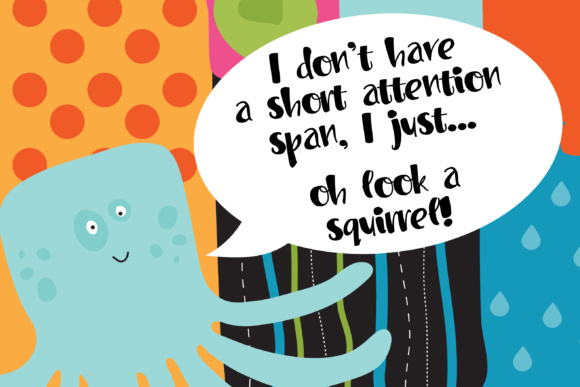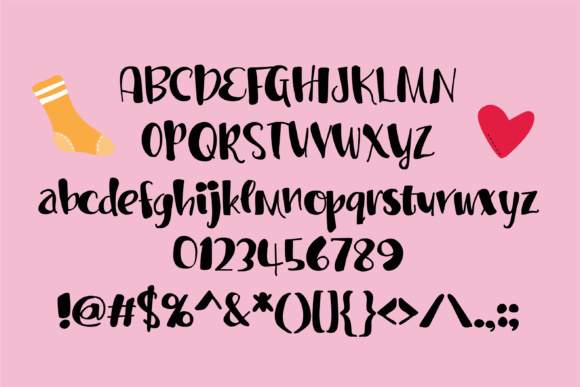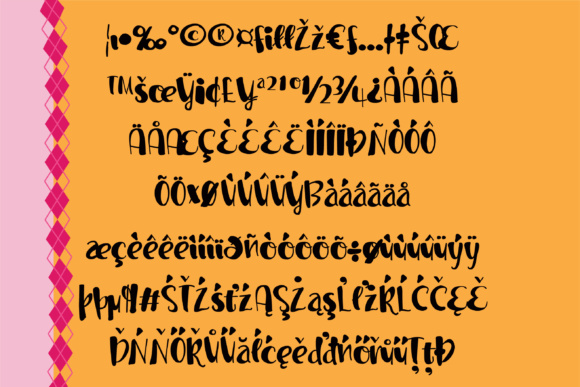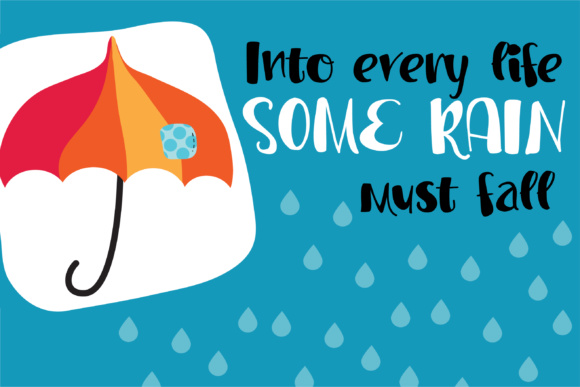
Introduction to PN Octopus Socks Font Font
Fonts play a crucial role in design, and the PN Octopus Socks Font font is a typeface that brings both character and versatility to any project. Whether you’re working on a branding project, a website, or a print design, the PN Octopus Socks Font font offers a unique style that can elevate your work.
This fun and whimsical font is hand-drawn and has an interesting mix of thick and thin lines.
Key Features of PN Octopus Socks Font Font
Why Choose PN Octopus Socks Font Font?
The PN Octopus Socks Font font is more than just a typeface – it’s a design tool that helps you communicate your message with style and clarity. Its unique character set and versatile design make it suitable for a wide range of applications, from elegant invitations to bold headlines.
With its carefully crafted letterforms and balanced proportions, the PN Octopus Socks Font font ensures readability and visual appeal across all mediums.
What makes PN Octopus Socks Font font special?
The PN Octopus Socks Font font stands out with its unique design, exceptional readability, and versatility across various design applications.